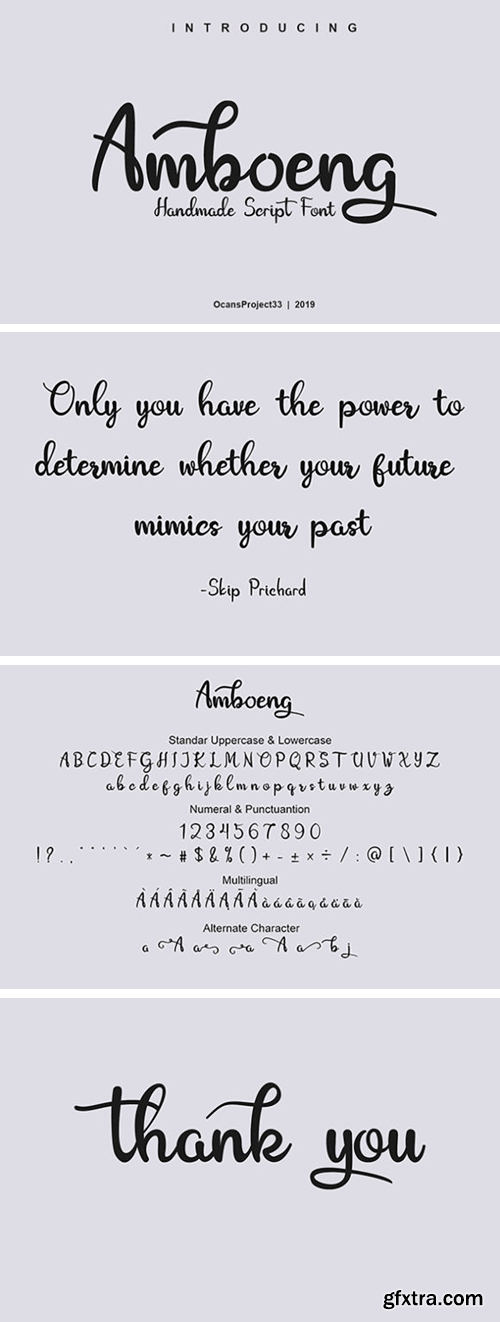
阿蒙格字体
Amboeng Font
The Amboeng is a fresh handmade font. It’s ideal for greeting cards, branding materials, business cards, quotes, posters, and more!